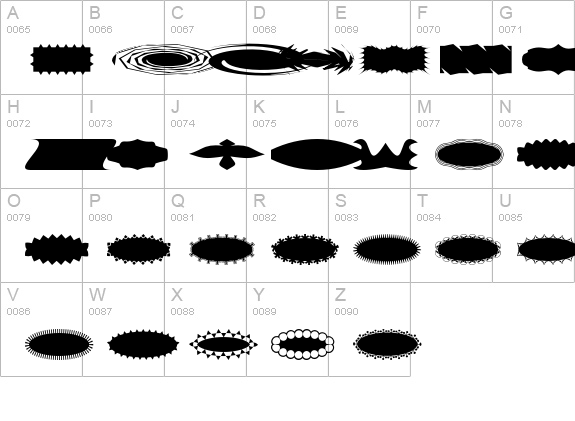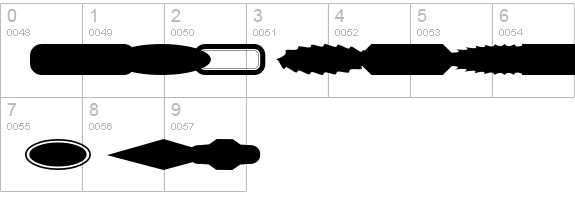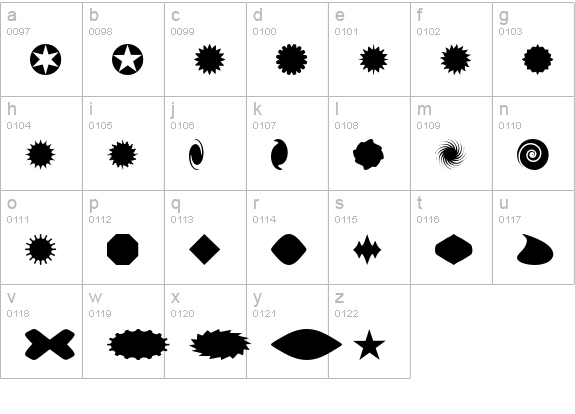
ObscureBullet Font Details
ObscureBullet font is a unique and eye-catching typeface that adds a touch of mystery and intrigue to any design project. With its bold and edgy appearance, this font is perfect for making a statement and standing out from the crowd. The sharp angles and intricate details of each letter give ObscureBullet font a one-of-a-kind look that is sure to captivate your audience. The best part? ObscureBullet font is completely free to download at FontsMarket.com. That's right, you can add this striking font to your collection without spending a dime. Whether you're working on a poster, flyer, logo, or any other creative project, ObscureBullet font is a versatile choice that will elevate your design to the next level. Don't miss out on this fantastic opportunity to enhance your work with this exceptional font. Download ObscureBullet font today and let your creativity soar!